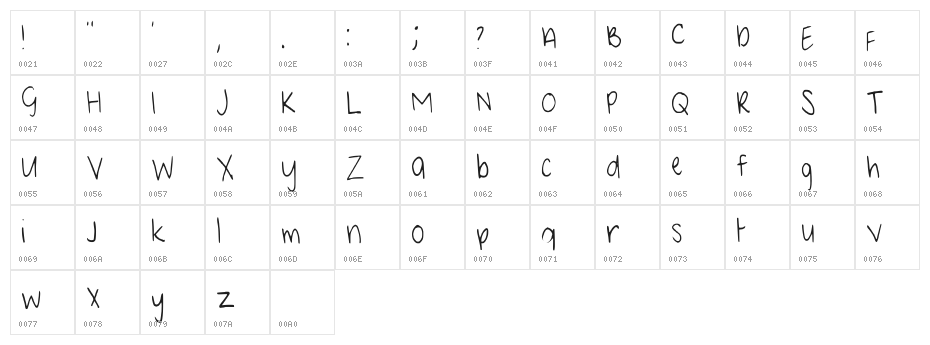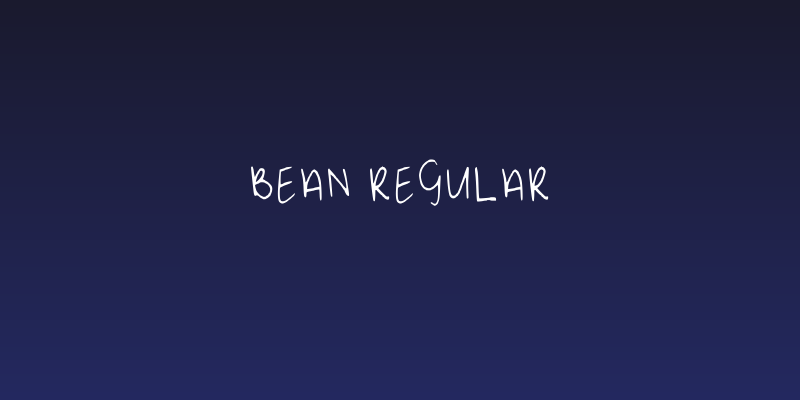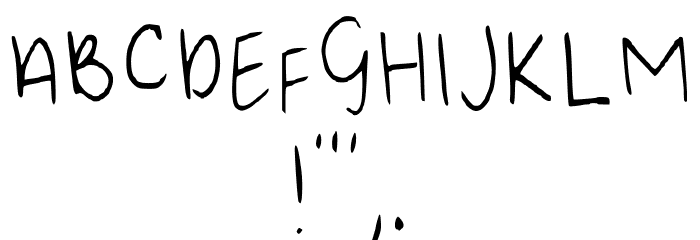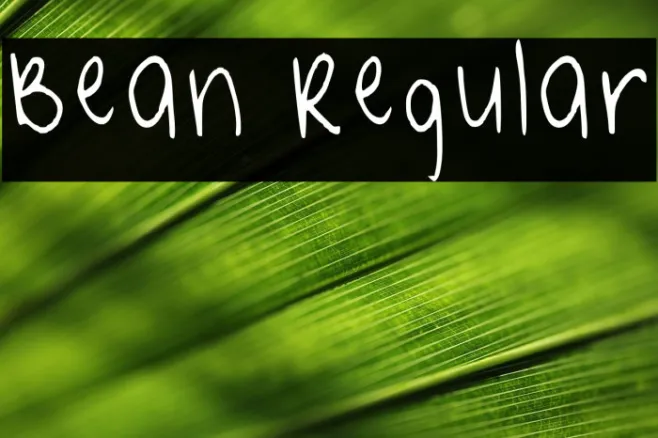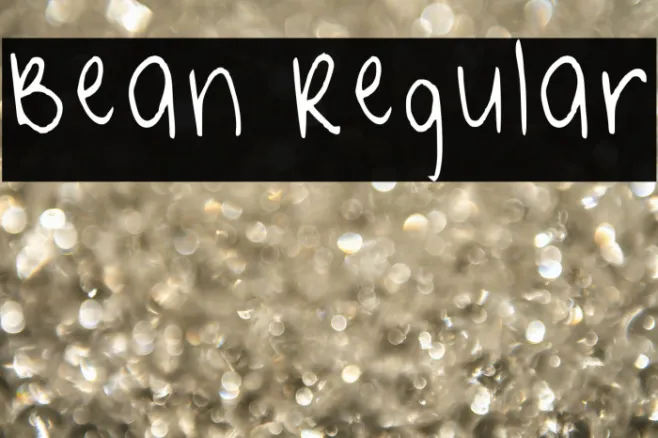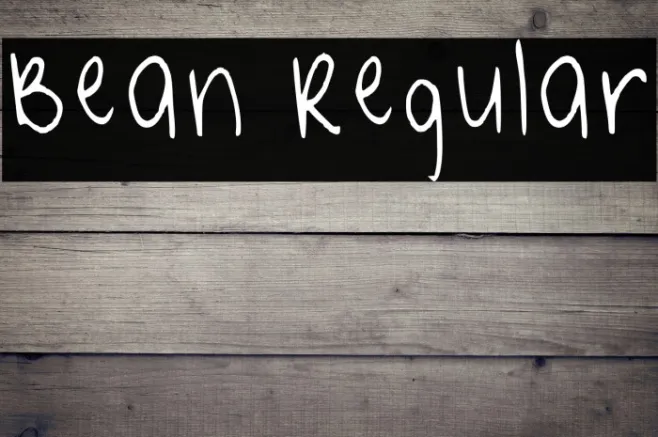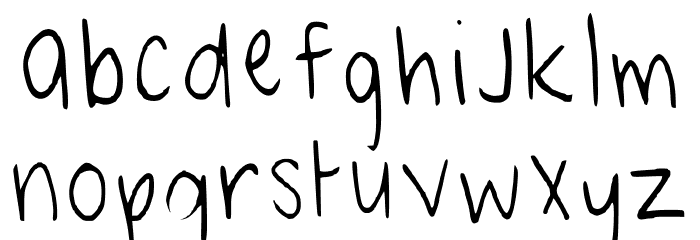
Bean Regular Font
Bean Regular Description
This font features a playful, handwritten style with a casual and informal appearance. The letters are slightly irregular, giving it a charming and approachable feel. The strokes are consistent in width, contributing to a uniform look across the characters. The uppercase and lowercase letters maintain a cohesive style, with rounded edges and a slight tilt that adds to its whimsical nature. The numerals and special characters follow the same design principles, ensuring a harmonious overall appearance. This font is well-suited for projects that require a personal touch or a friendly, inviting atmosphere.